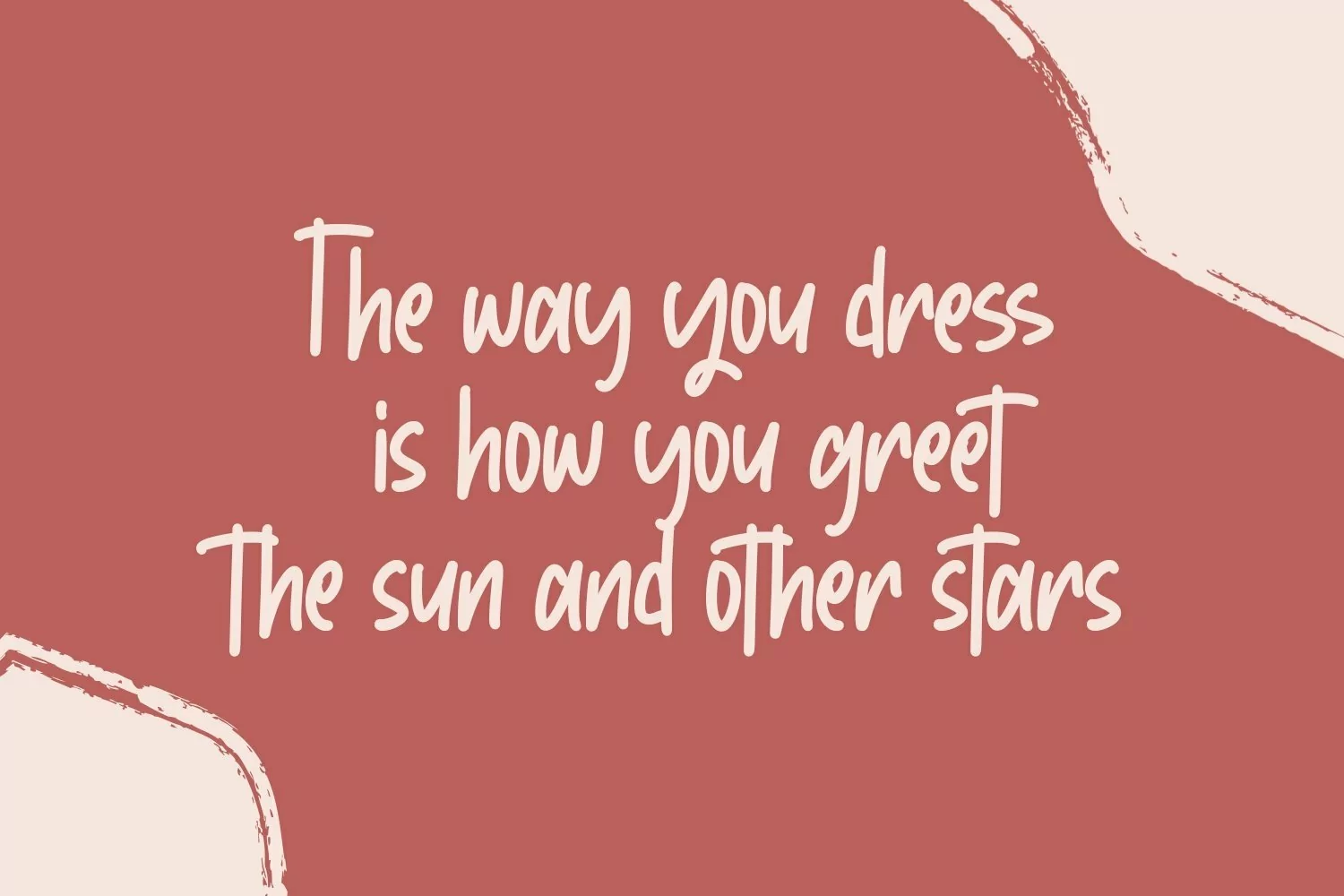
Ocean Dream - Handwritten Monoline Fonts that contain lowercase, uppercase, symbol, and also support multi language. There’s a lot ligatures in this font. This Font also comes with ligatures, alternates and many more. this font suitable for fashion, branding, catalog and other design what you want.